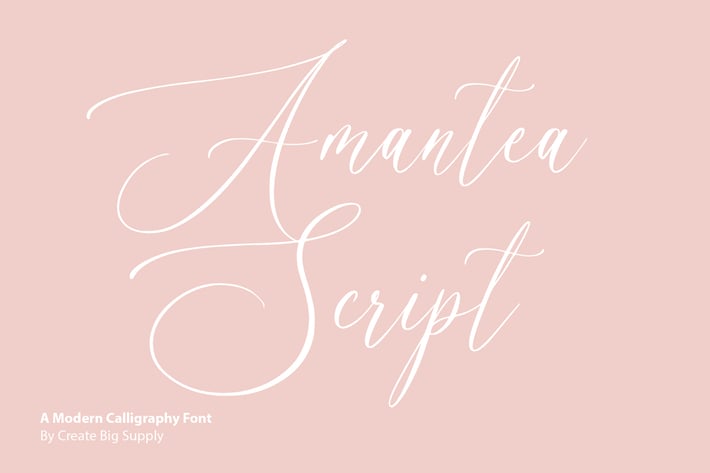
Amantea Elegant Handwritten Bridal Font
Amantea is an elegant handwritten bridal font designed for romantic and sophisticated projects. With soft, flowing curves and graceful strokes, it’s ideal for wedding invitations, bridal logos, beauty packaging, and heartfelt social content.
Its timeless handwritten style brings warmth and charm to every word—perfect for feminine, love-inspired branding.
Key Features:
- Romantic and flowing handwritten style
- Perfect for wedding invitations and branding
- Elegant curves for a timeless, feminine feel
- Great for logos, quotes, and packaging
- Numerals and full punctuation
- Supports multiple languages
- Alternate
Amantea adds refined elegance and heartfelt beauty to your creative work—perfect for love stories in design.